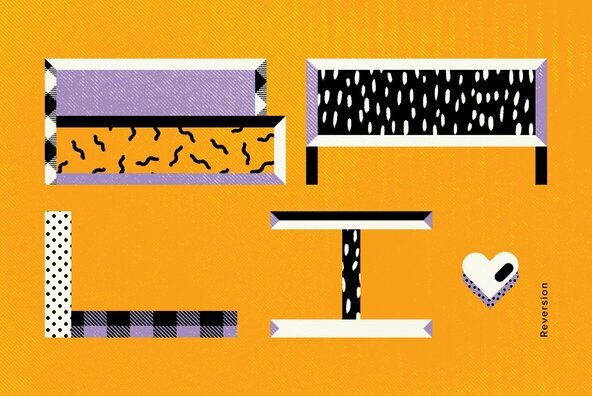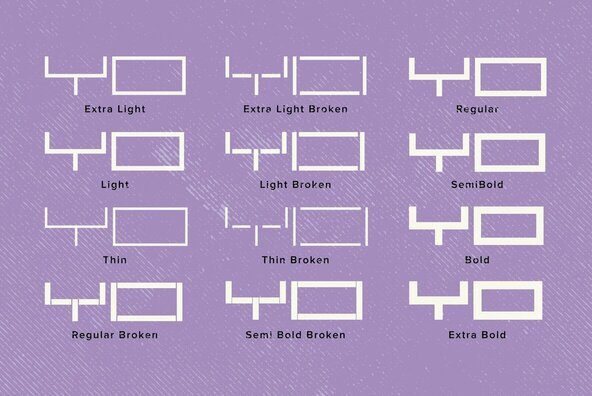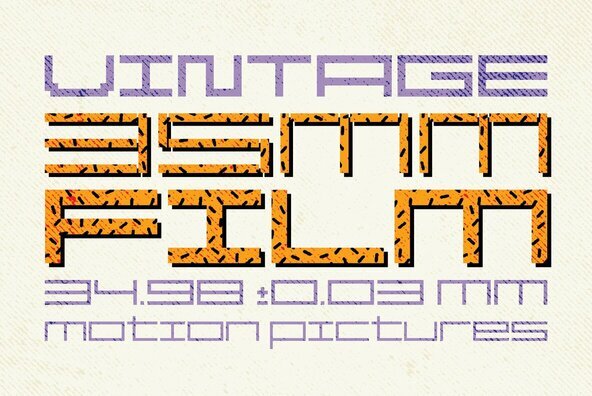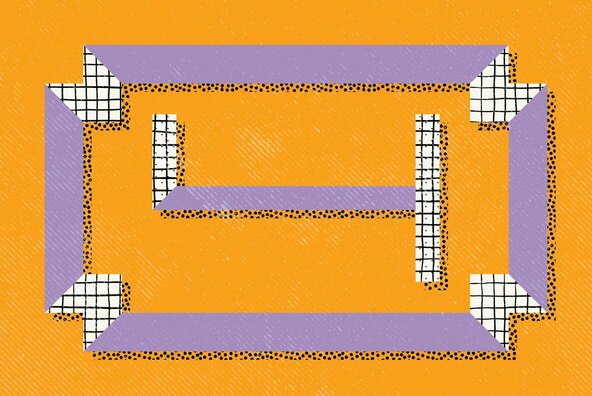
YWFT Reversion
YWFT Reversion is an interestingly wide and versatile display type design, perfect for a striking headline or an attention-grabbing poster or billboard. One of YWFT Reversion's strengths is its ability to help any designer start custom lettering jobs with a basic skeleton. The unique letter approaches in the Broken styles separate YWFT Reversion from any other bitmap/display typeface in this style. YWFT Reversion was converted to Opentype format in 2010. Designed exclusively by Michael Cina and YouWorkForThem.